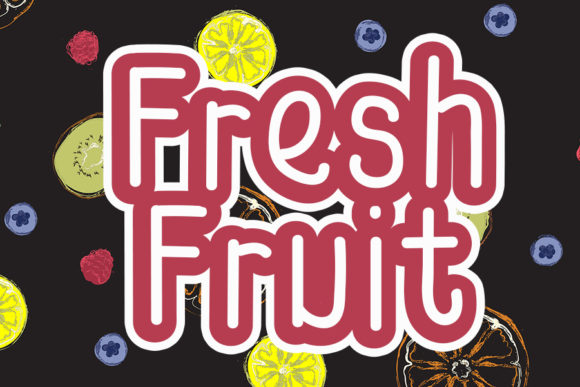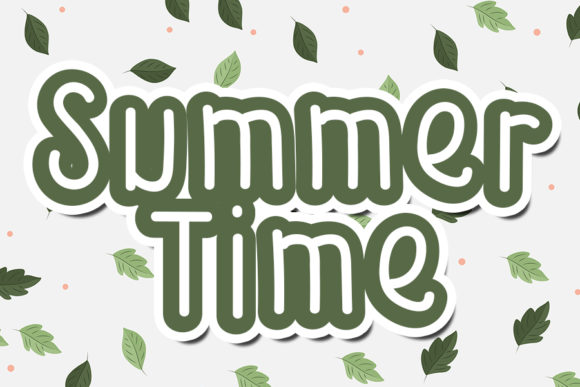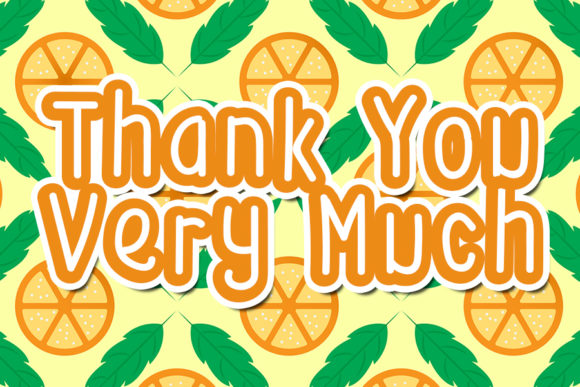
Introduction to Cyber Monday Font
As designers, we’ve all been there – staring at a blank canvas, trying to spark that creative flame that sets our project ablaze. It’s a moment of pure inspiration, where the perfect font can make all the difference. That’s exactly what happened when we discovered the Cyber Monday Font – a modern display font that’s as stylish as it is readable.
This sleek font is perfect for fashion branding or editorial designs, adding a touch of sophistication to any creative project. With its smooth curves and high-quality design, the Cyber Monday Font is a valuable resource for designers looking to elevate their work. Whether you’re working on a free download or a paid project, this font is sure to impress. And the best part? It’s available for free, making it a transparent background for your creativity to shine through.
- Unique, modern design with a bold and edgy feel, perfect for promotional materials and advertisements
Honest Review: Cyber Monday Font
I recently stumbled upon the Cyber Monday Font, and I’m excited to share my thoughts on this design resource. As a designer, I’m always on the lookout for high-quality fonts to elevate my creative projects.
The Cyber Monday Font is a fantastic addition to any design arsenal. Here are some of its standout features:
- ✨ High-quality design that’s perfect for digital projects
- ✨ Transparent background, making it easy to use on various backgrounds
- ⚠️ Limited font styles available (only a few weights and styles)
- ⚠️ Not suitable for print projects due to its digital design
Overall, I’m impressed with the Cyber Monday Font. It’s a great resource for designers working on digital projects, and the free download is a huge bonus. While it may have some limitations, it’s a high-quality font that’s worth considering for your next creative project.
The Cyber Monday Font is a high-quality, free download perfect for any creative project. With a transparent background, this versatile font is ideal for designers looking to add a touch of modern style to their work.
To get the most out of this font, experiment with different font sizes and styles to create a visually appealing design. You can also use it in combination with other fonts to create a unique and eye-catching look.
The Cyber Monday Font is perfect for a variety of creative projects, including:
- Branding materials
- Website headers